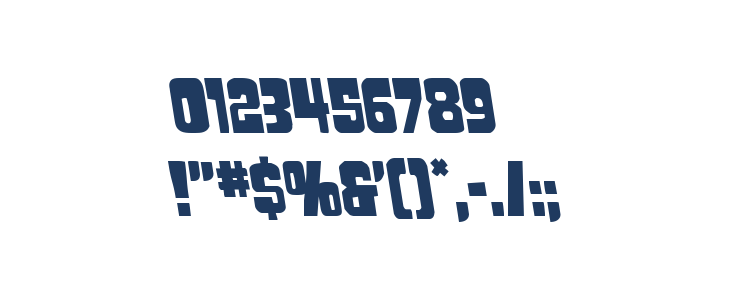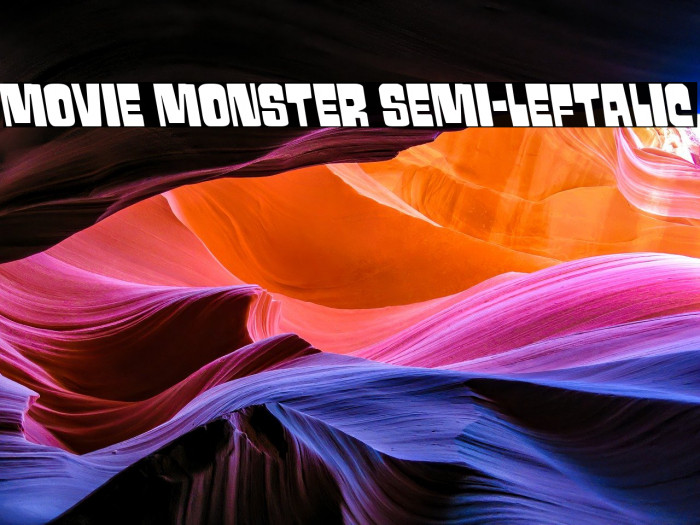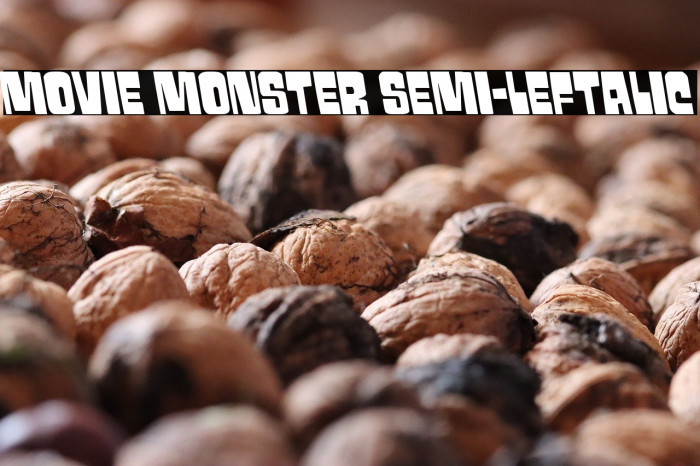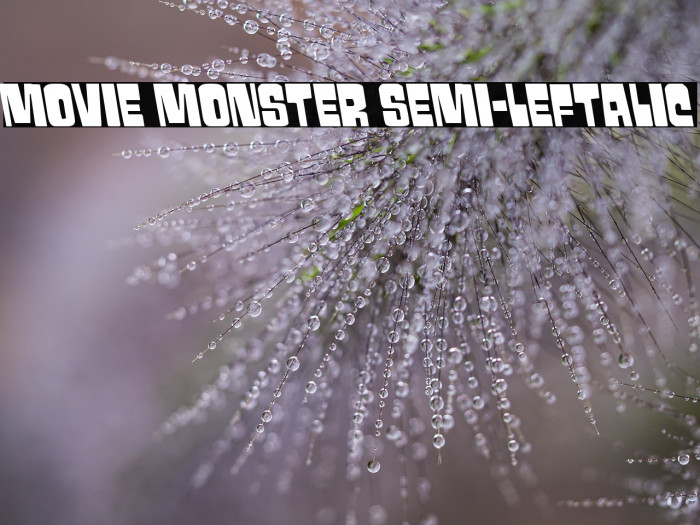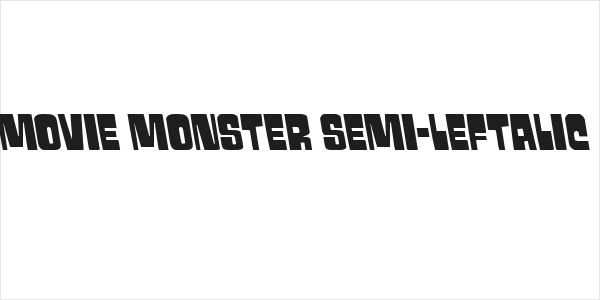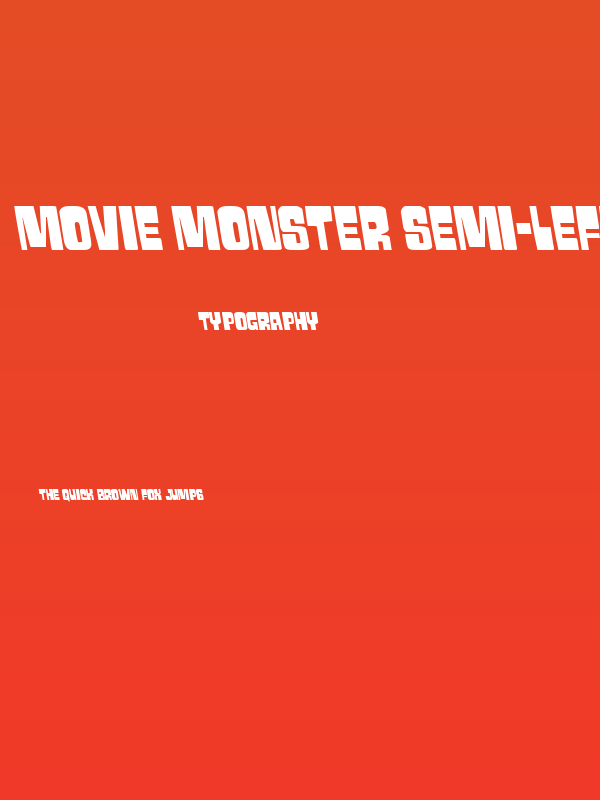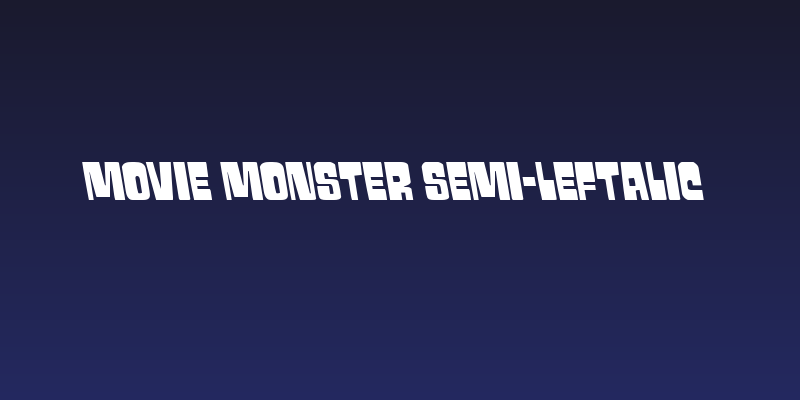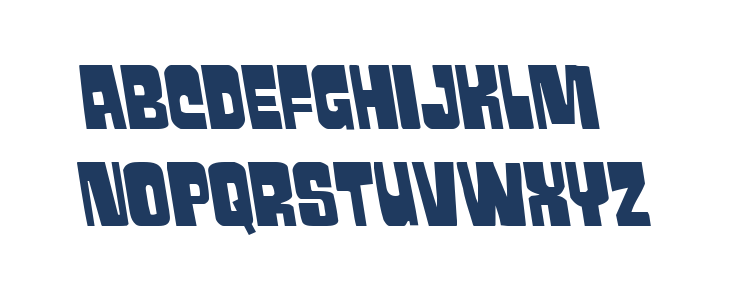
Movie Monster Semi-Leftalic Font
Movie Monster Semi-Leftalic Description
This font features a bold and dynamic style with a strong presence, characterized by thick, blocky letters that convey a sense of power and impact. The uppercase and lowercase letters maintain a consistent width, creating a uniform appearance. The numbers and special characters follow the same bold design, ensuring a cohesive look across all elements. The font's slightly slanted orientation adds a touch of movement and energy, making it suitable for attention-grabbing designs. Its geometric shapes and sharp angles contribute to a modern and edgy aesthetic, perfect for projects that require a bold statement.
| Proposed Projects | Ideal for movie posters, video game titles, branding for action-oriented products, and any design needing a strong, impactful typeface. |